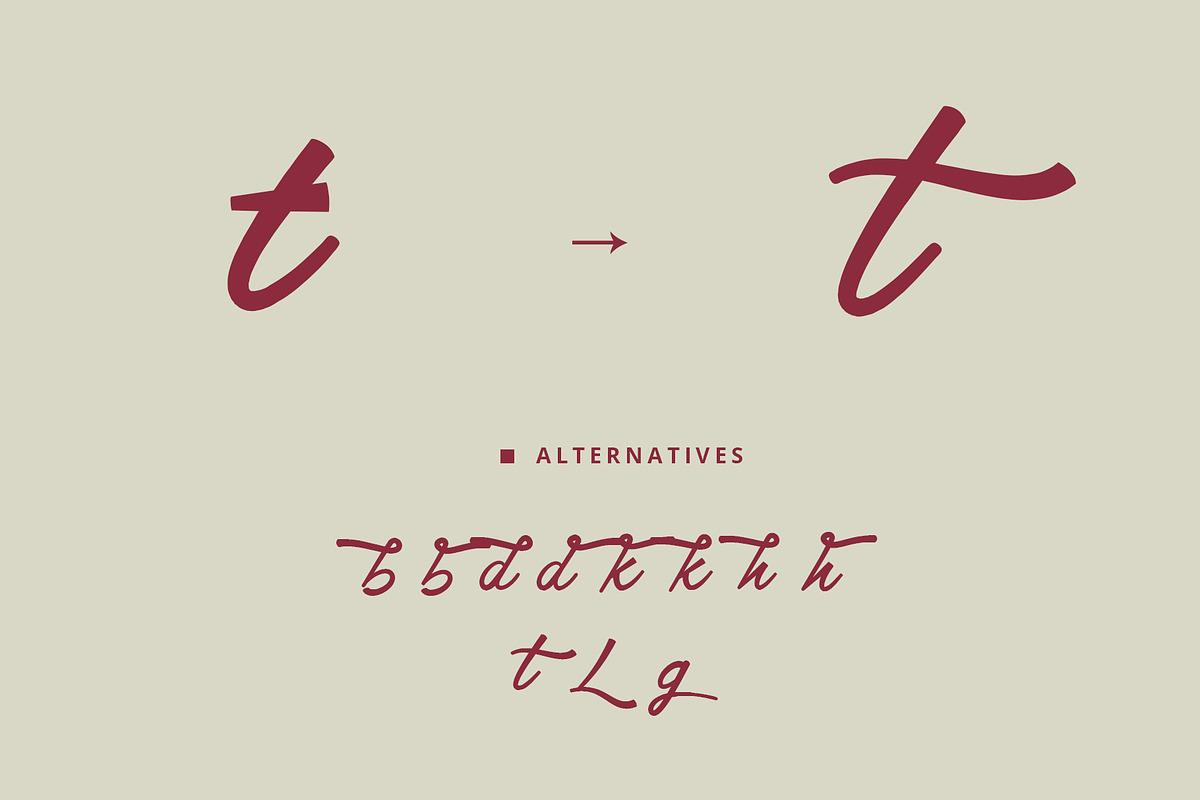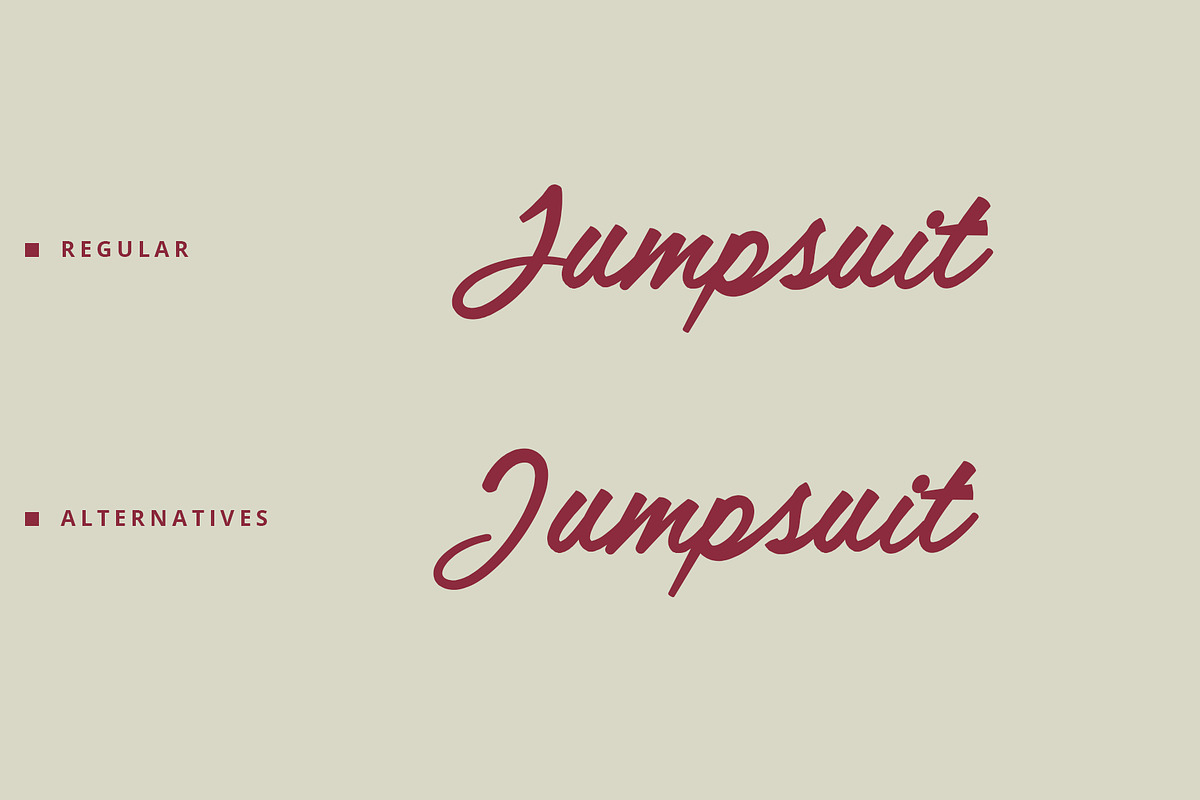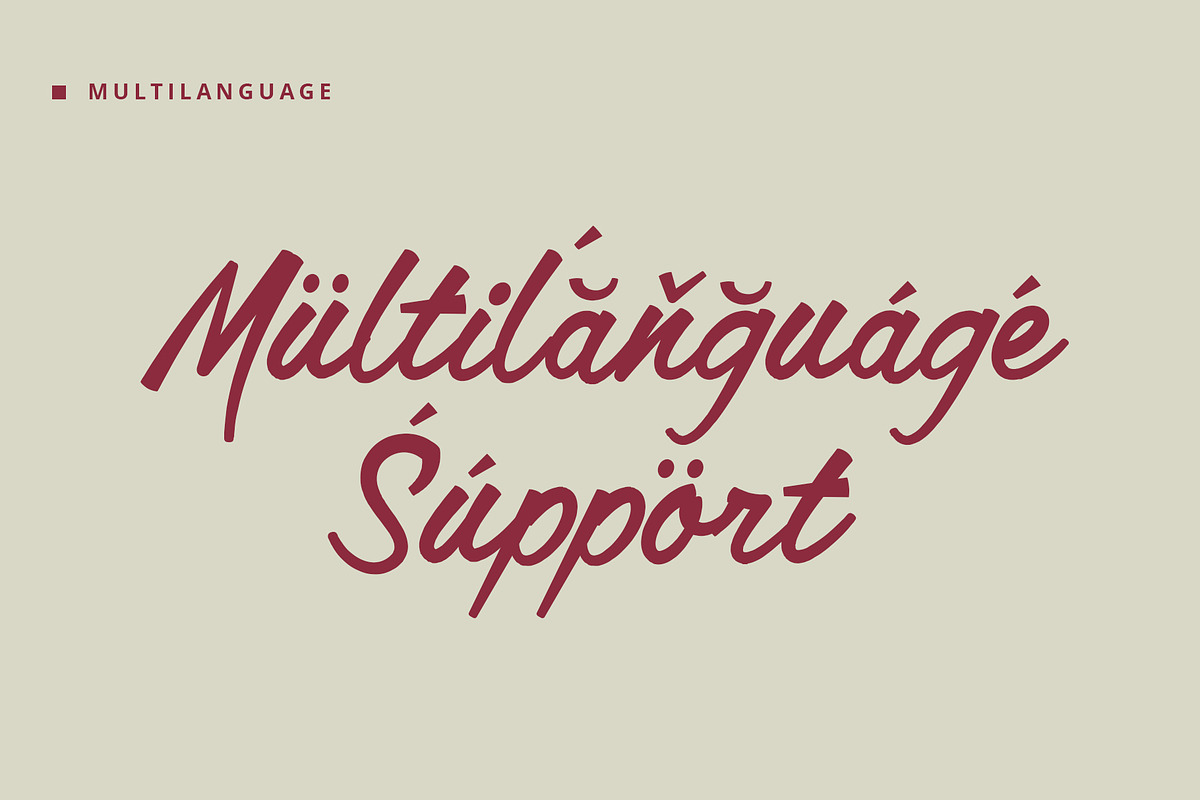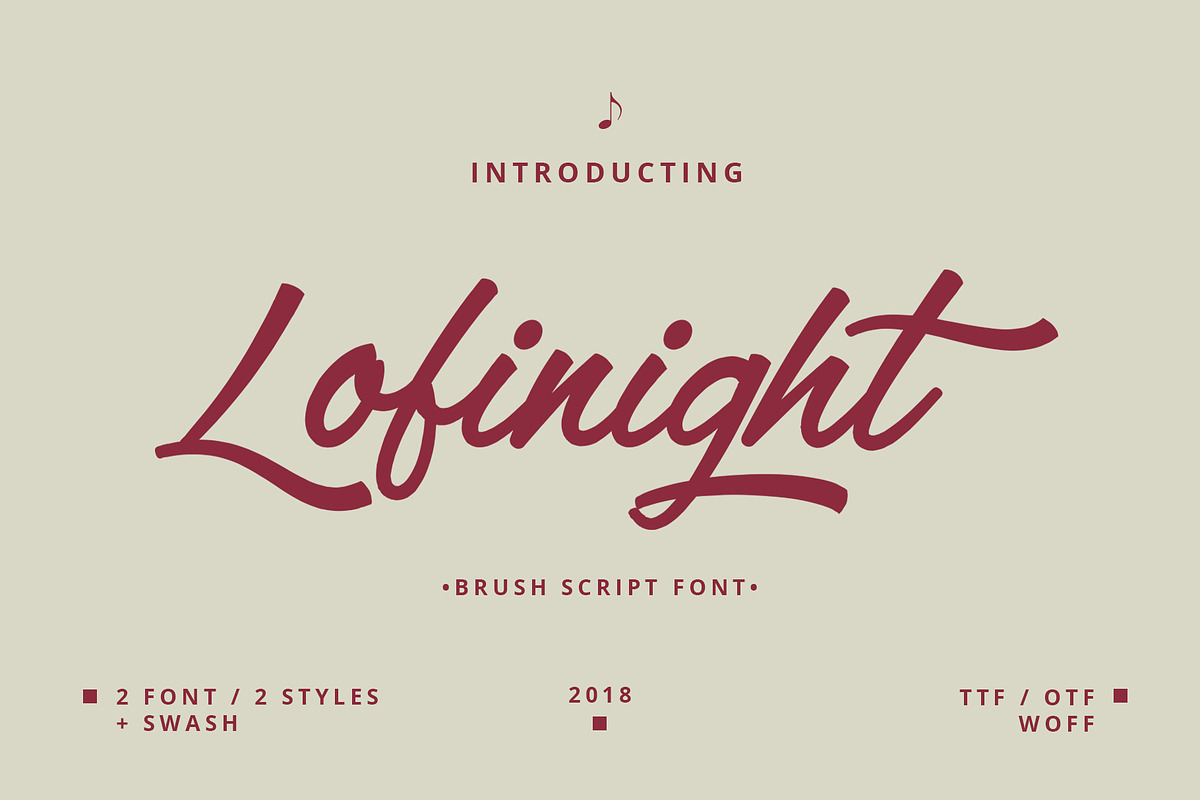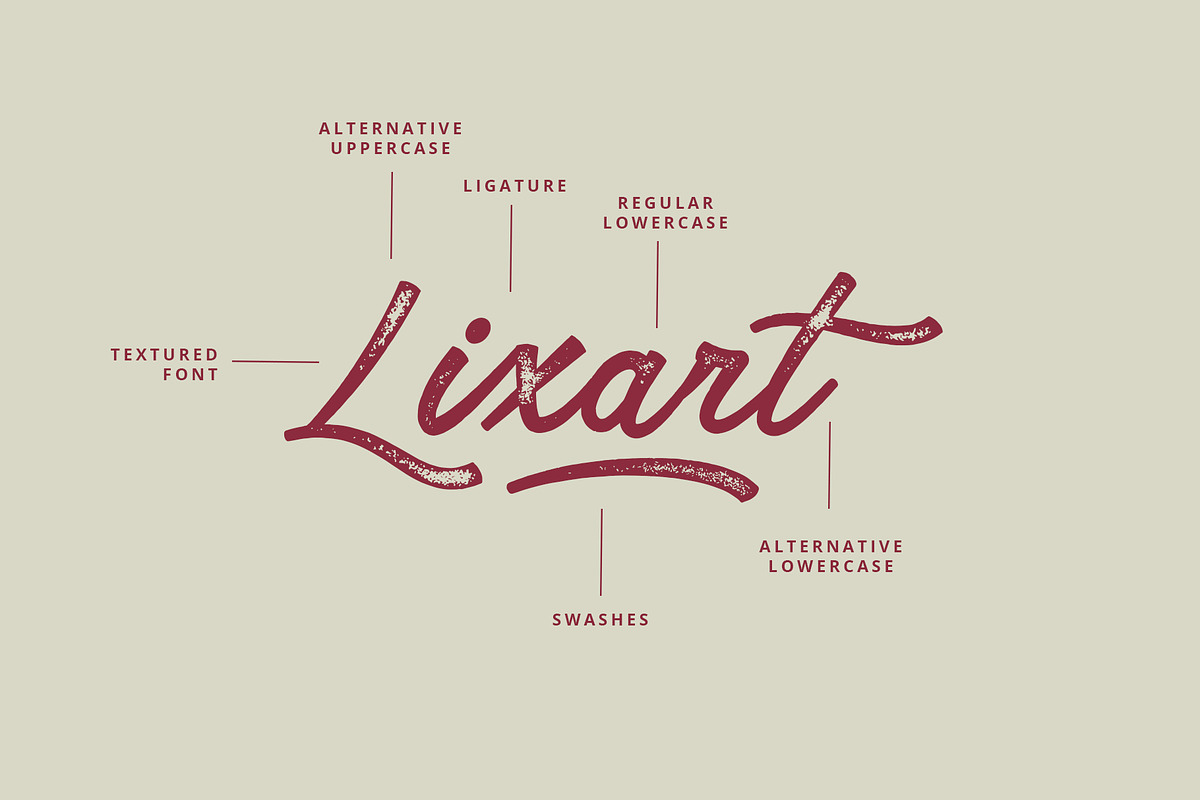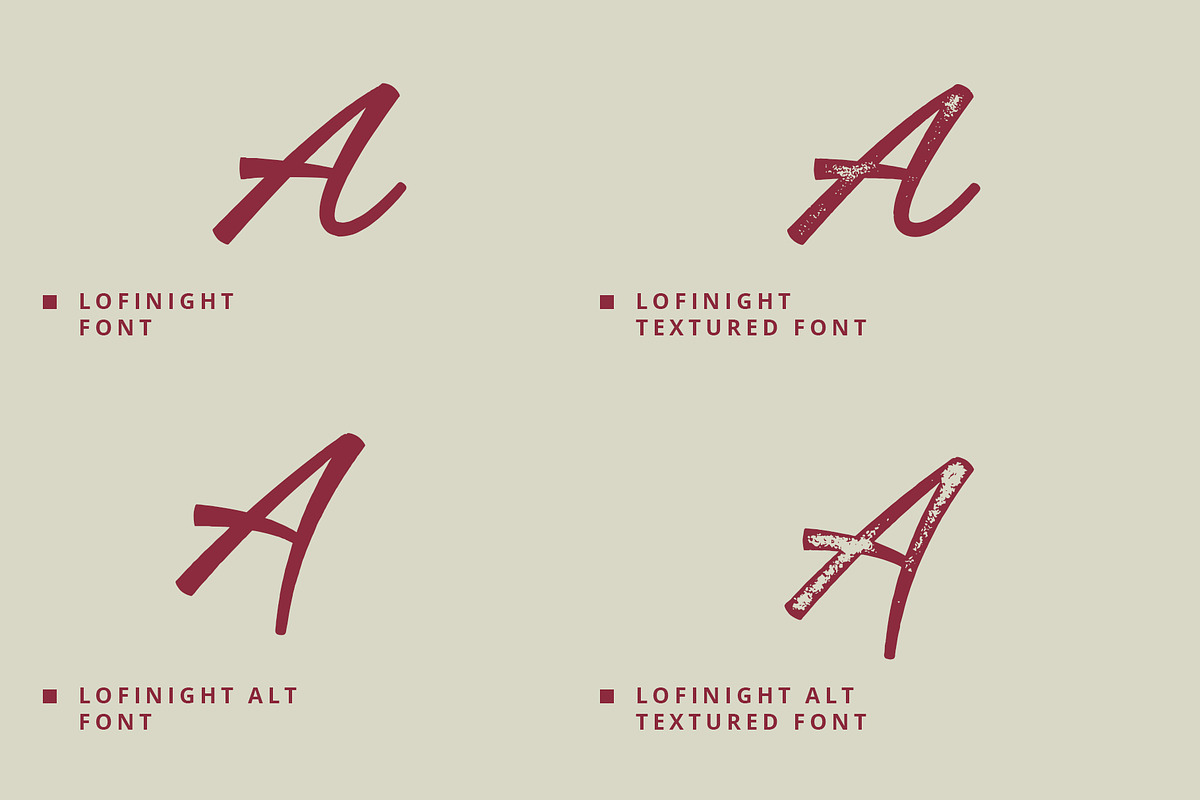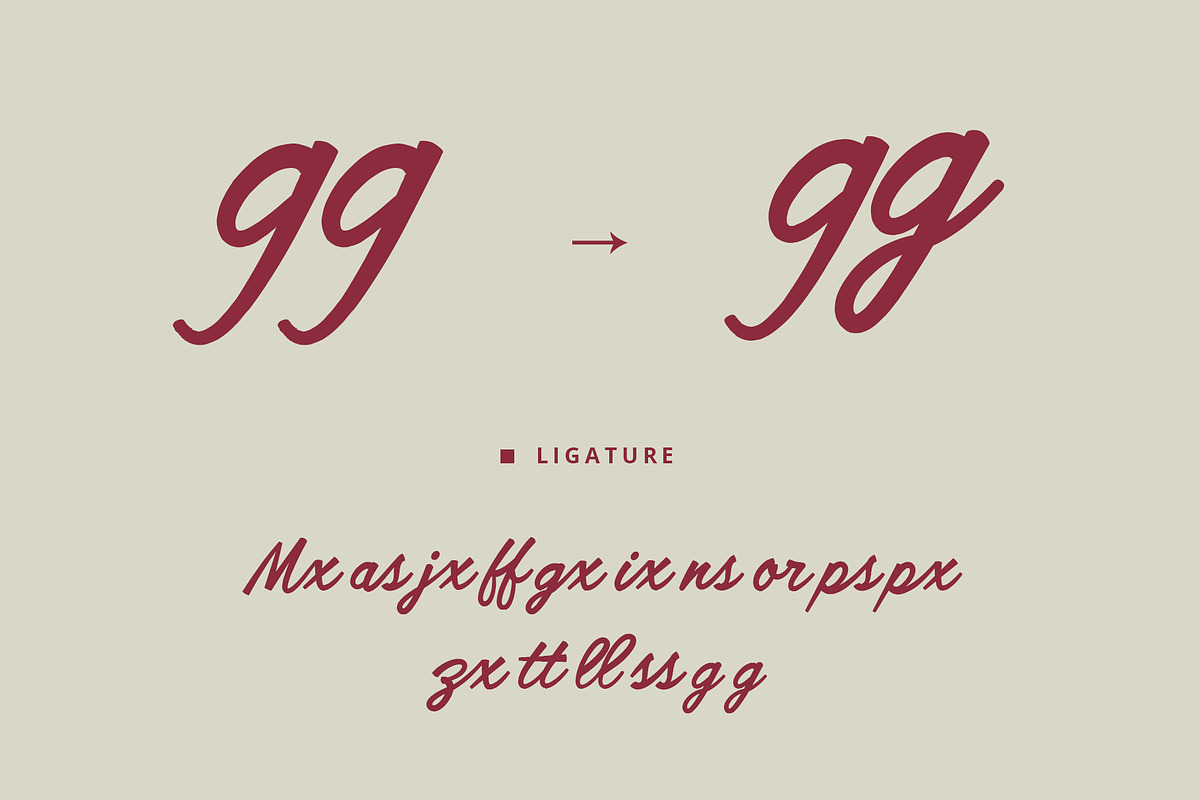
Lofinight: is a very unique brush script font. font consists of 2 fonts, 2 texture fonts and swash, each font has: uppercase, lowercase, ligature, alternative, multilingual, etc.
This font is suitable for creating logos, posters, apparel designs, cards, etc. or use your creativity to make beautiful designs with this font.
- font consists of 2 fonts, 2 texture fonts and swash, each font has: uppercase, lowercase, ligature, alternative, multilingual, etc.